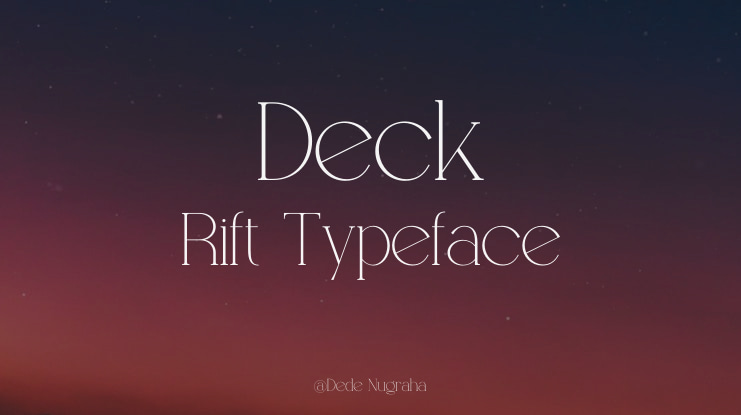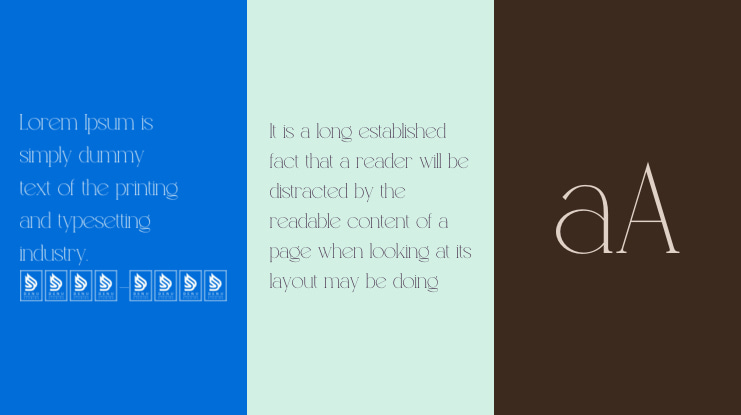
Deck Rift | Experimental Serif is suitable for any projects such as: logos, branding projects, homeware designs, product packaging, mugs, quotes, posters, shopping bags, t-shirts, book covers, name card, invitation cards, greeting cards, label, photography, watermark, special events, and all your other lovely projects that need a Experimental Serif taste.